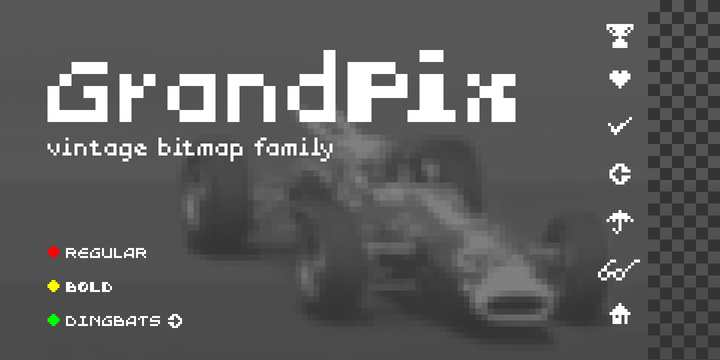
Grand Pix
Grand Pix is a font family designed for the limitations of the old days low resolution monochromatic screens. Even with few pixels, it brings together legibility and personality.